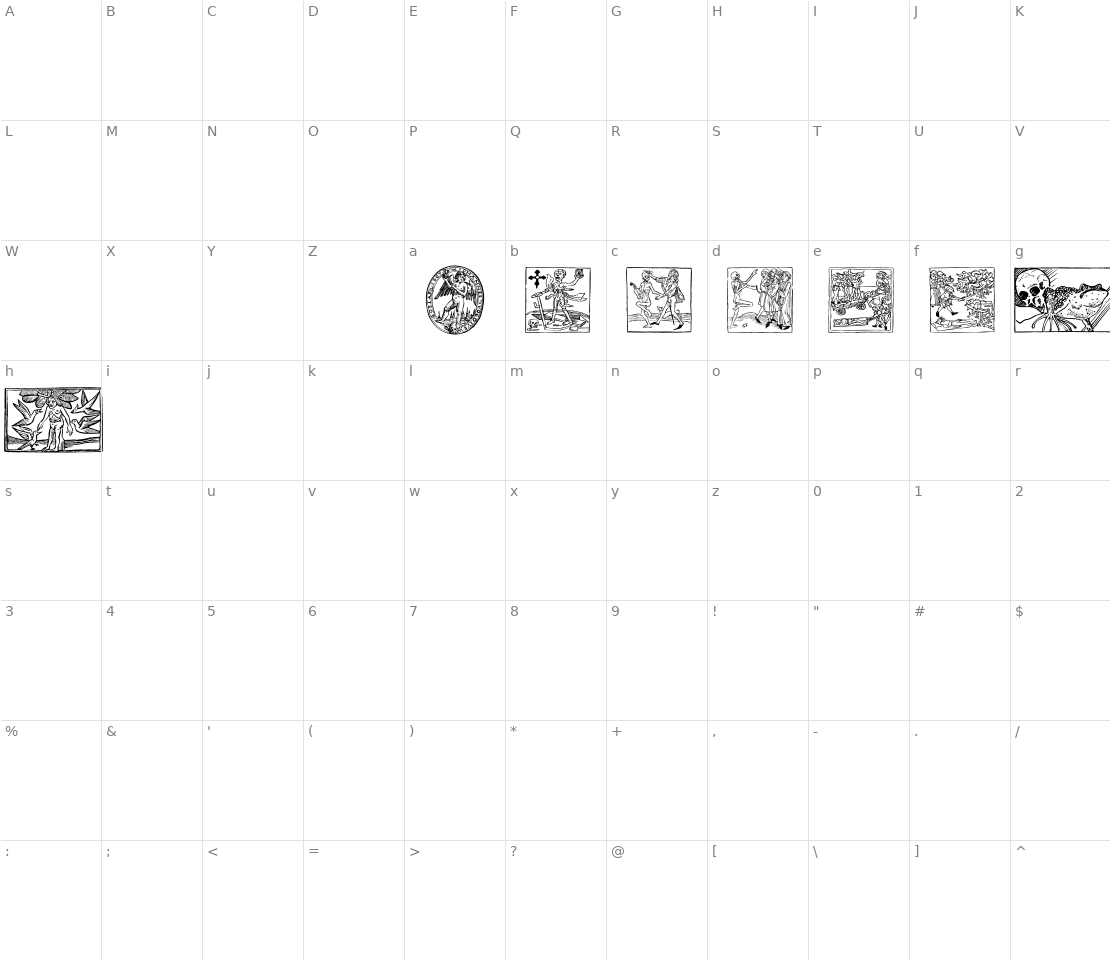
Woodcut 2
Woodcut 2 is a dingbats font from Listemageren filled with decorative illustrations that replicate the look of medieval and early Renaissance woodcut engravings. Each glyph is a detailed vignette, the kind of ornamental imagery you'd find in old printed books, broadsides, and illuminated borders. Useful for adding period-appropriate flourishes to historical publications, invitations, or editorial layouts that call for vintage illustrative detail.